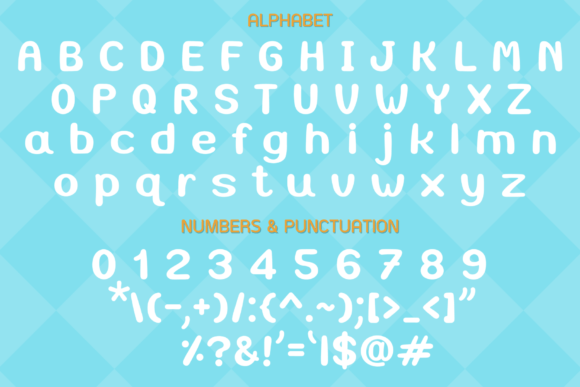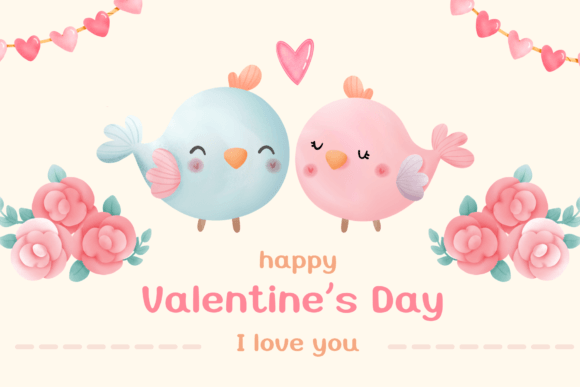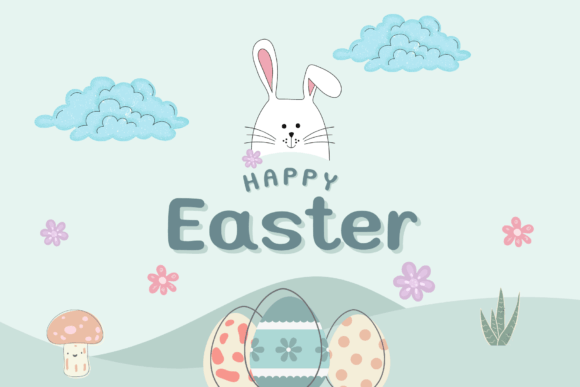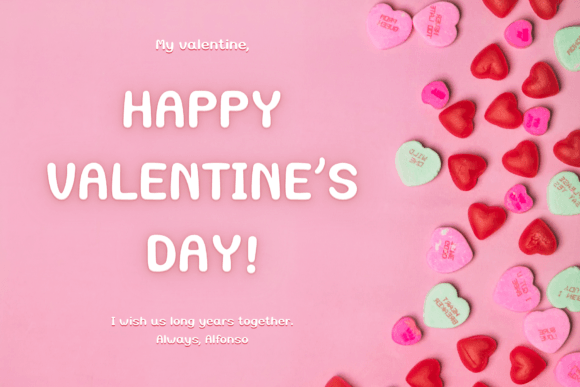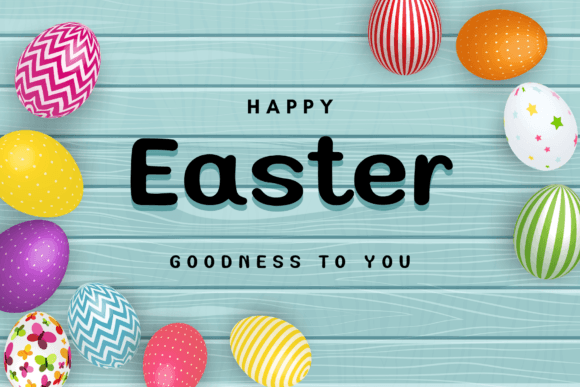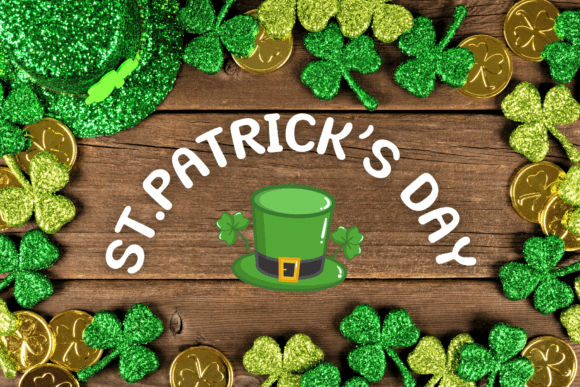
Introducing Always Cute Font: The Playful and Charming Display Font
Are you looking for a font that can add a touch of playfulness and whimsy to your designs? Look no further than Always Cute Font! This charming and lovely display font is perfect for creating eye-catching headlines, logos, and posters that are sure to capture the attention of your audience. With its unique personality and adorable letterforms, Always Cute Font is ideal for designers and crafters who want to add a touch of joy and happiness to their projects.
The Perfect Font for Playful Branding and Fun Designs
Always Cute Font is specifically designed to bring a sense of playfulness and fun to your designs. Its whimsical letterforms and charming personality make it perfect for children’s products, playful branding, and fun designs. Whether you’re creating a logo for a kids’ toy, a poster for a children’s event, or a social media graphic for a playful brand, Always Cute Font is the perfect choice.
Key Features of Always Cute Font
- Unique and Whimsical Letterforms: Always Cute Font features unique and whimsical letterforms that are sure to add a touch of personality to your designs.
- Playful and Charming: This font has a playful and charming personality that is perfect for creating eye-catching headlines and logos.
- Perfect for Children’s Products: Always Cute Font is ideal for children’s products, such as toys, games, and kids’ apparel.
- Easy to Read: Despite its playful nature, Always Cute Font is easy to read and understand, making it perfect for use in a variety of design projects.
Uses for Always Cute Font
Always Cute Font is a versatile font that can be used in a variety of design projects, including:
- Children’s Products: Use Always Cute Font to create fun and playful designs for children’s products, such as toys, games, and kids’ apparel.
- Playful Branding: This font is perfect for creating playful and eye-catching branding materials, such as logos, business cards, and brochures.
- Posters and Flyers: Use Always Cute Font to create eye-catching posters and flyers for events, promotions, and products.
- Social Media Graphics: This font is perfect for creating fun and playful social media graphics, such as Facebook posts, Instagram stories, and Twitter headers.
Tips for Using Always Cute Font
Here are a few tips for using Always Cute Font in your designs:
- Use it for Headlines: Always Cute Font is perfect for use in headlines and titles, where its playful and charming personality can really shine.
- Pair it with Other Fonts: This font pairs well with other fonts, such as sans-serif fonts and script fonts. Experiment with different pairings to find the one that works best for your design.
- Use it in Color: Always Cute Font looks great in color, so don’t be afraid to experiment with different colors and color combinations.
Always Cute Font is a charming and lovely display font that is perfect for adding a touch of playfulness and whimsy to your designs. With its unique personality and adorable letterforms, this font is ideal for designers and crafters who want to create eye-catching headlines, logos, and posters that are sure to capture the attention of their audience. Whether you’re creating a logo for a kids’ toy or a poster for a children’s event, Always Cute Font is the perfect choice.